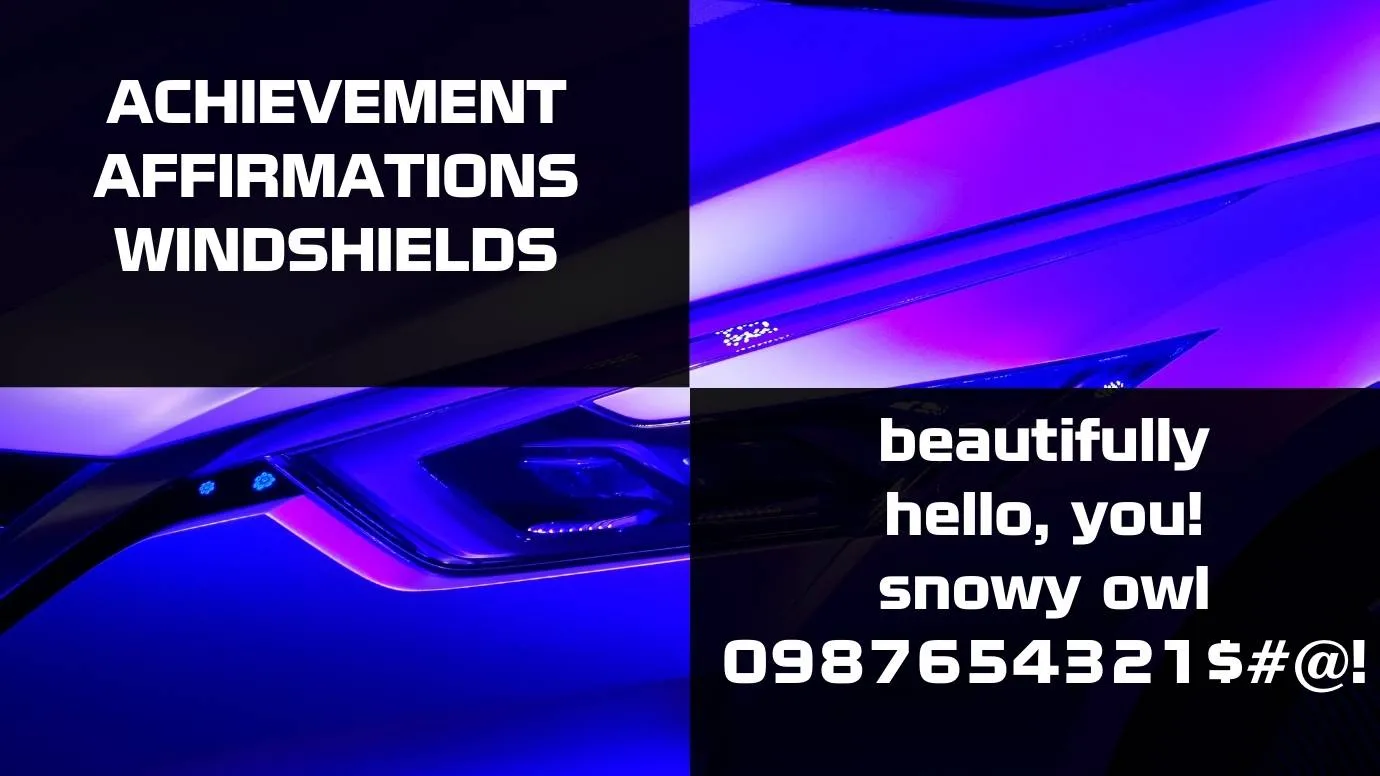
Are you interested to use a simple but stunning and unique typeface? Nissan Font is a lovely and astonishing typeface. This typeface belongs to the Logo category. This typeface is used in the logo of a famous car company Nissan.
Nissan is a Japanese car company which is founded in 1933. Its logo design was upgraded in 2002 and this logo is still in use. This typeface looks like the Sans Serif family. This typeface is similar to the new balance font and many other typefaces that are available on this website.
Designer of Nissan Font
This typeface is designed by a famous foundry OPTIFONT. This foundry also designed many popular fonts. Many designers used its designs in their projects.
This font style is designed with a unique and consistent style. This single attractive style is a mixture of different features, including capital alphabets, small alphabets, glyphs, numbers, punctuations, symbols, special characters, and several language support.
Is Nissan Font a modern font?
In a way, you can say that it is a modern typeface. This typeface is used in 2002 in the logo.
Is Nissan typeface easy to read?
Yes, this typeface is easy to read and understand. You can use this typeface in the body text and CSS code writing.
Is Nissan typeface good for a resume?